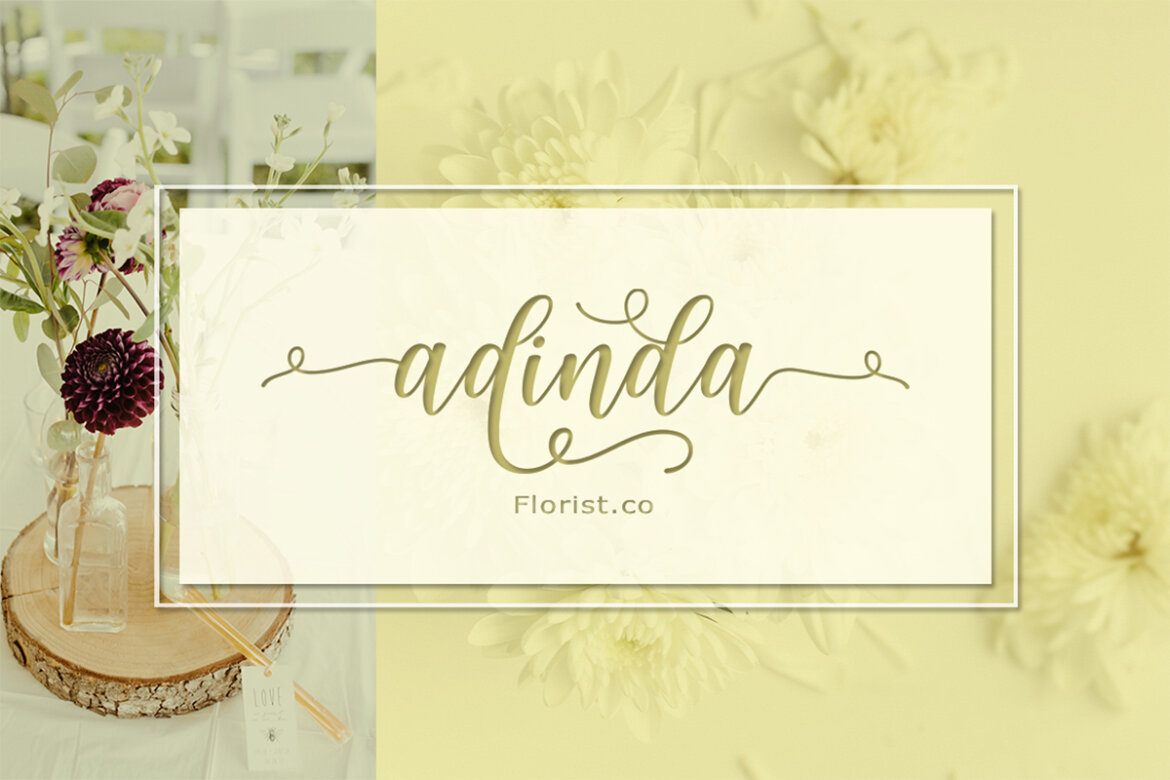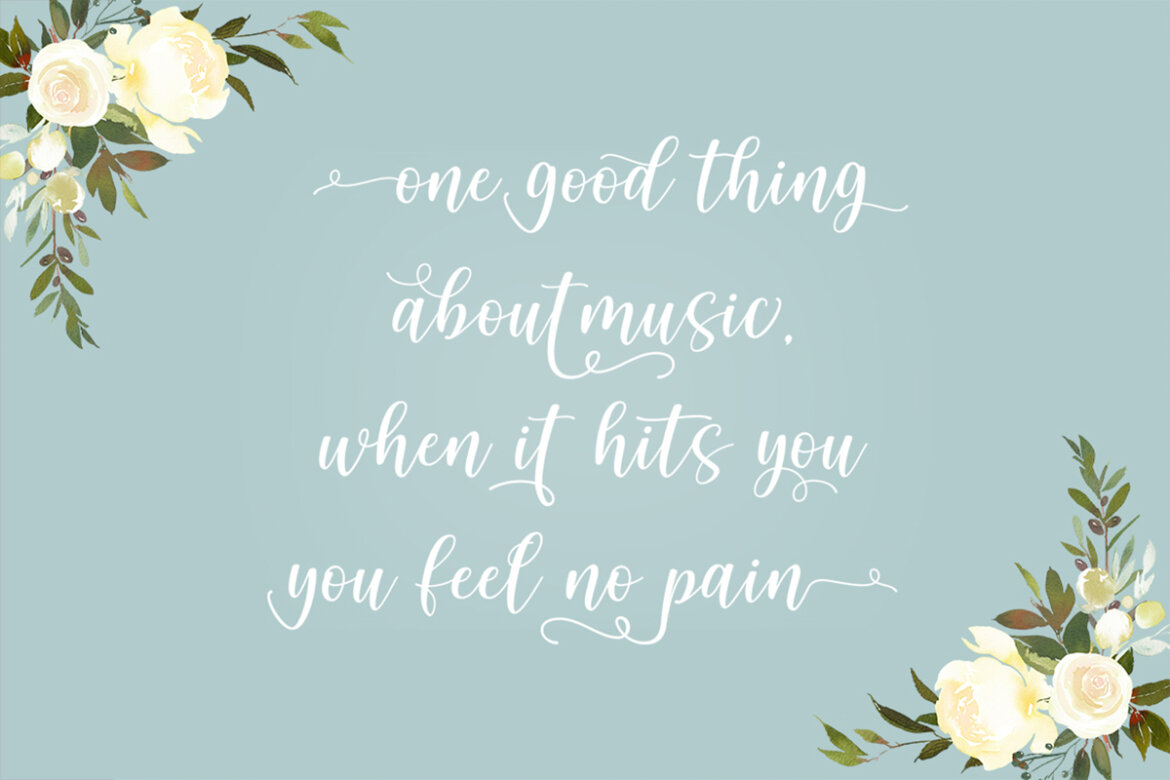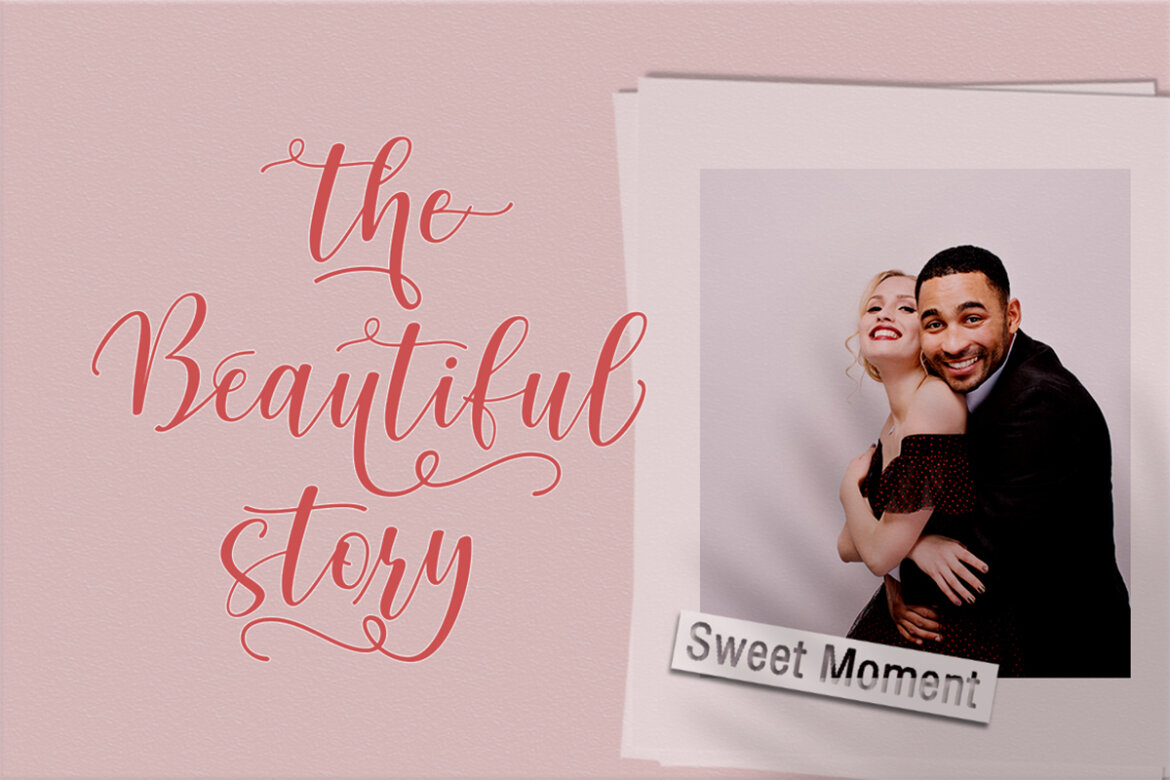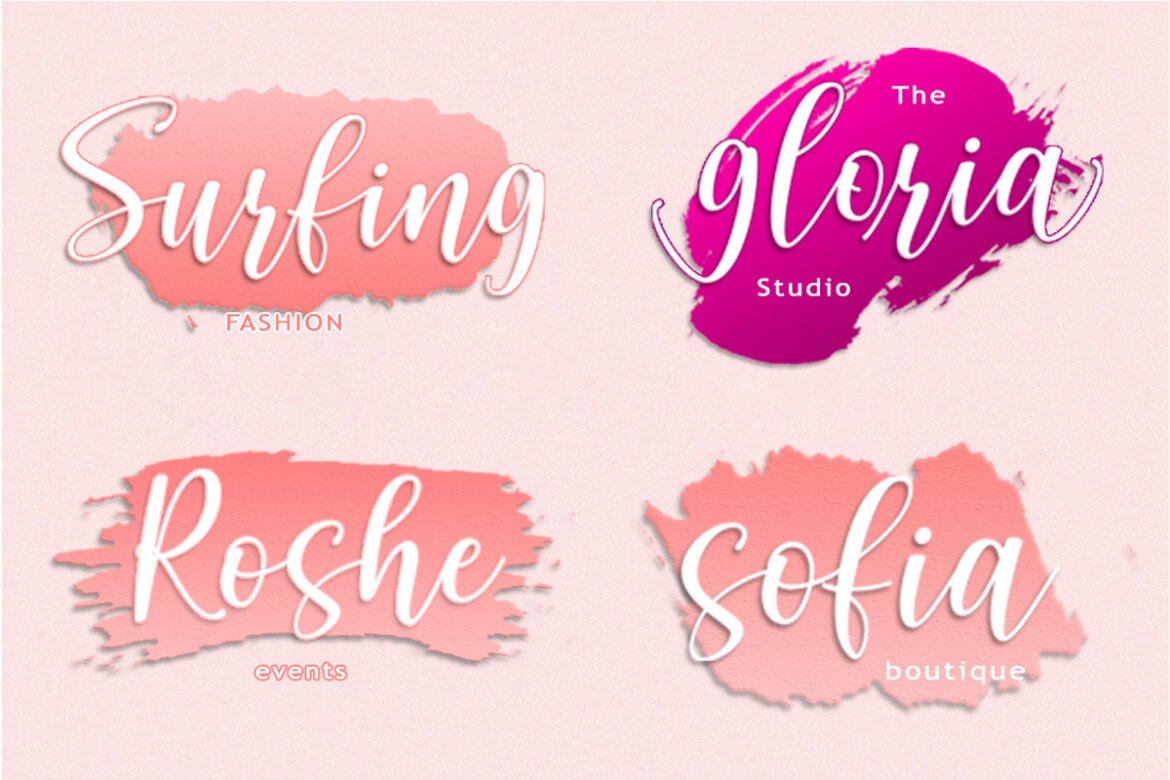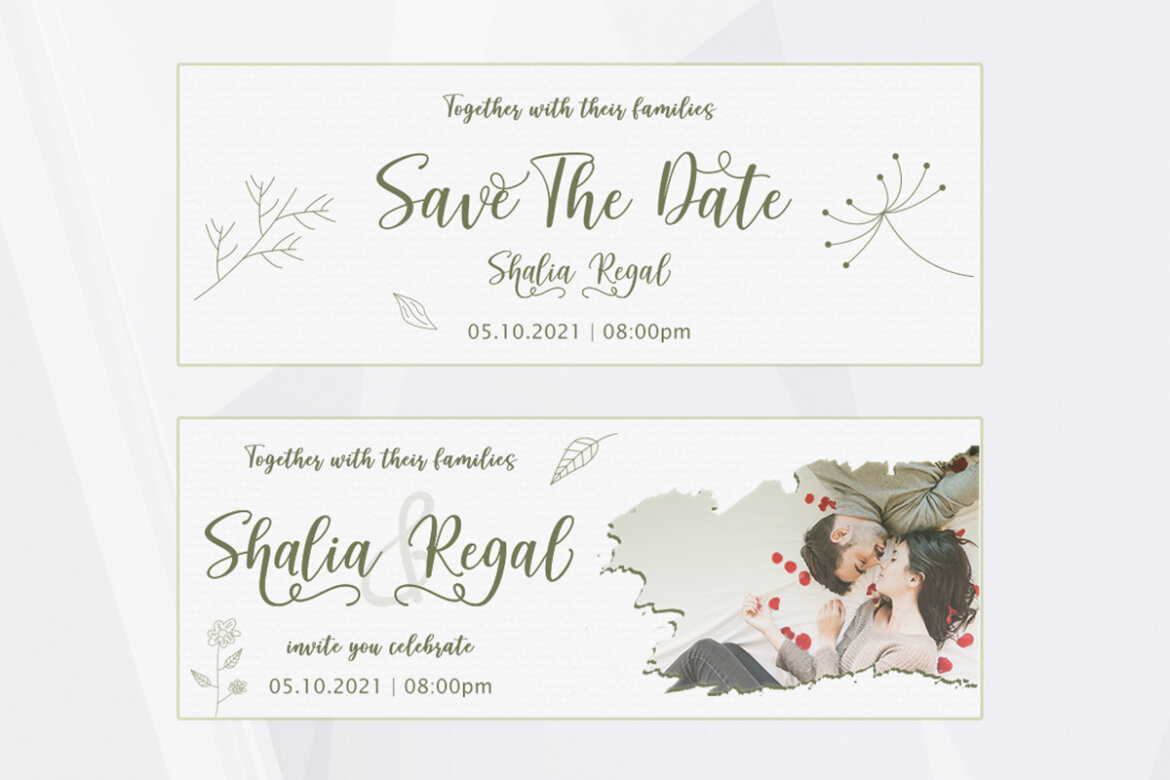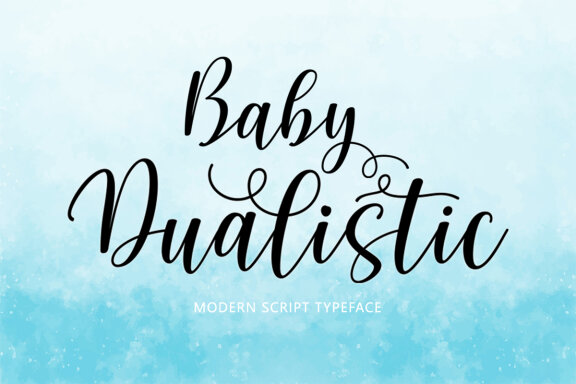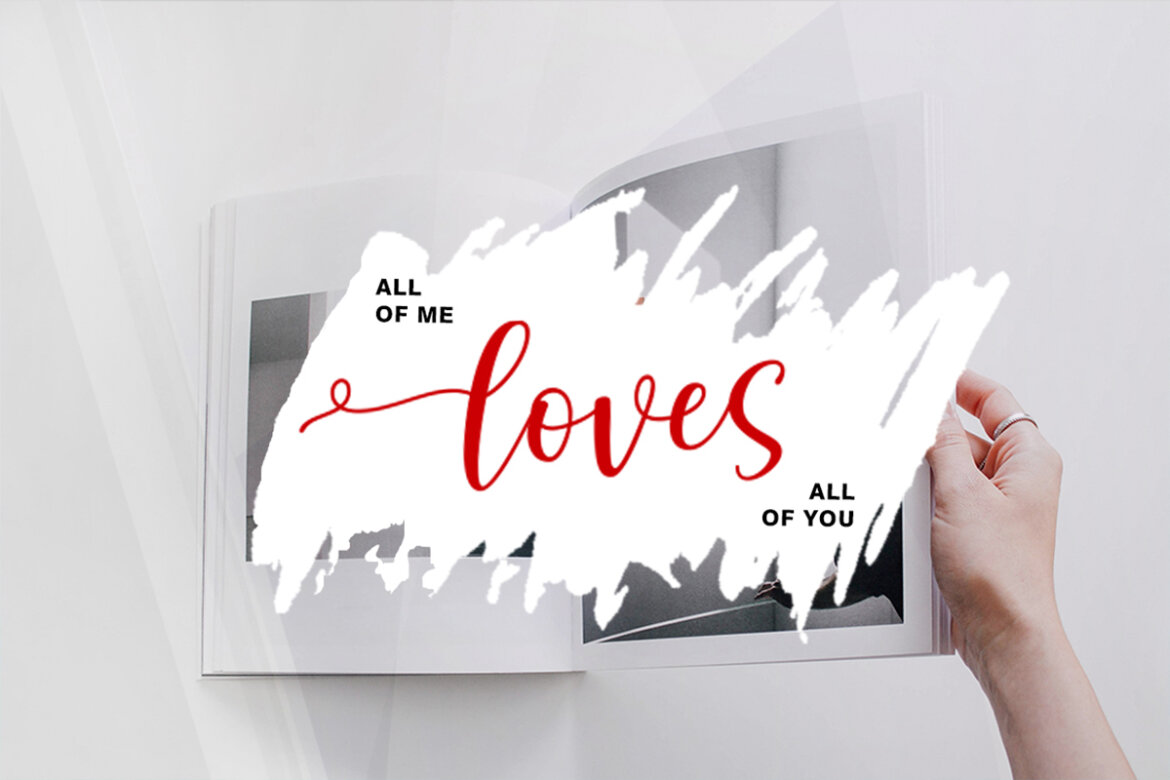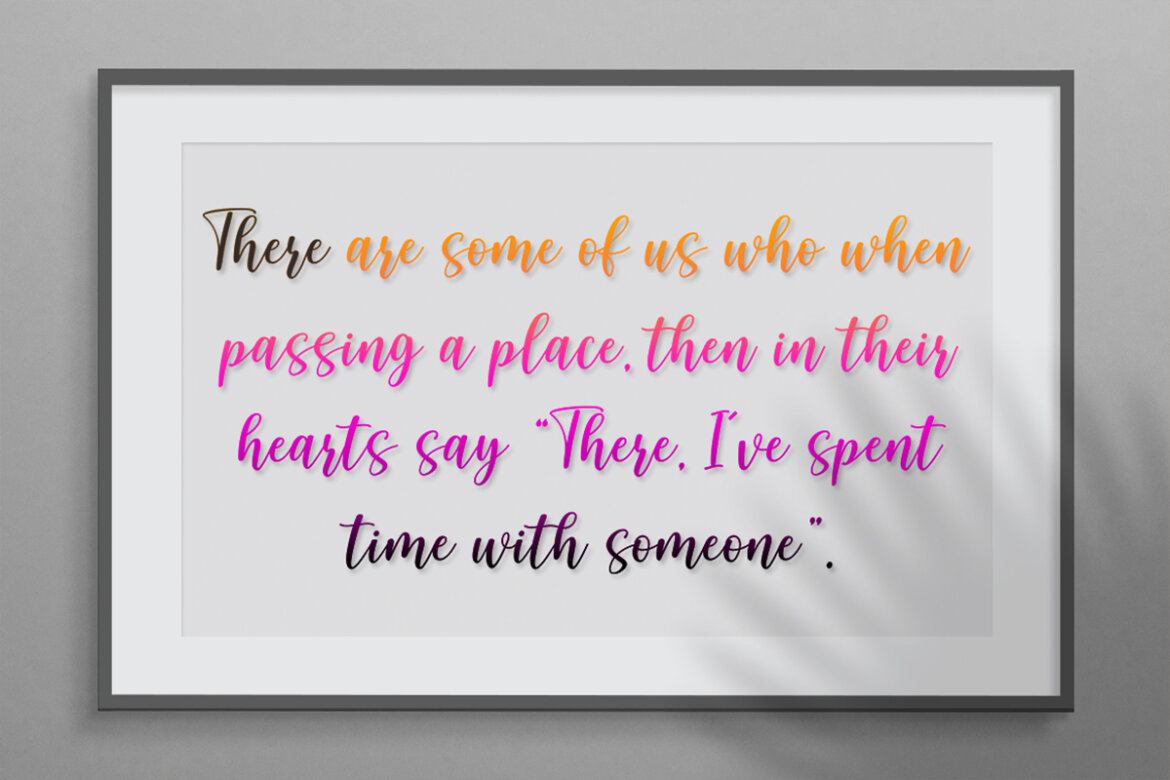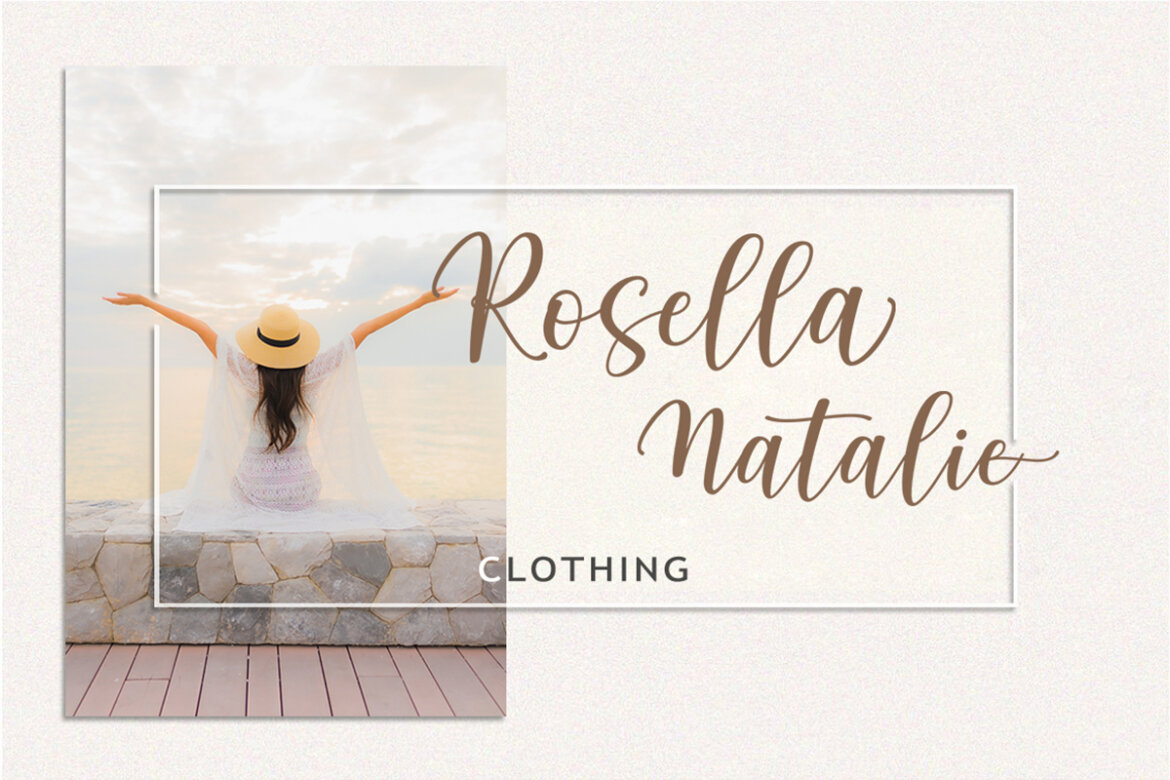
Baby Dualistic FREE Font
Baby Dualistic is a beautiful script font, featuring stylish and lovely characters. It is suitable for any branding, product packaging, invitation, quote, t-shirt, label, poster, logo that you wish to create. This font is PUA encoded which means you can access all of the glyphs and swashes with ease!
• baby dualistic is a beautiful script font, featuring stylish and lovely characters.
• it is suitable for any branding, product packaging, invitation, quote, t-shirt, label, poster, logo that you wish to create.